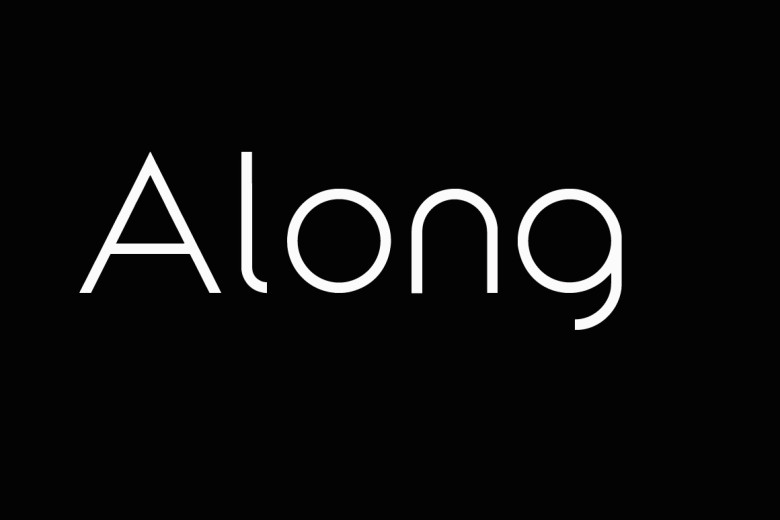
Along Font
Along is a sans serif font. It reached the structure 34 Links instead of some Glyphs Editions. We set it up with shapes made in modern design and Glyphs with a consistent design. For logos, titles, and editorial designs this makes it possible to achieve both cute and elegant typography.
Along Sans Serif Font Family